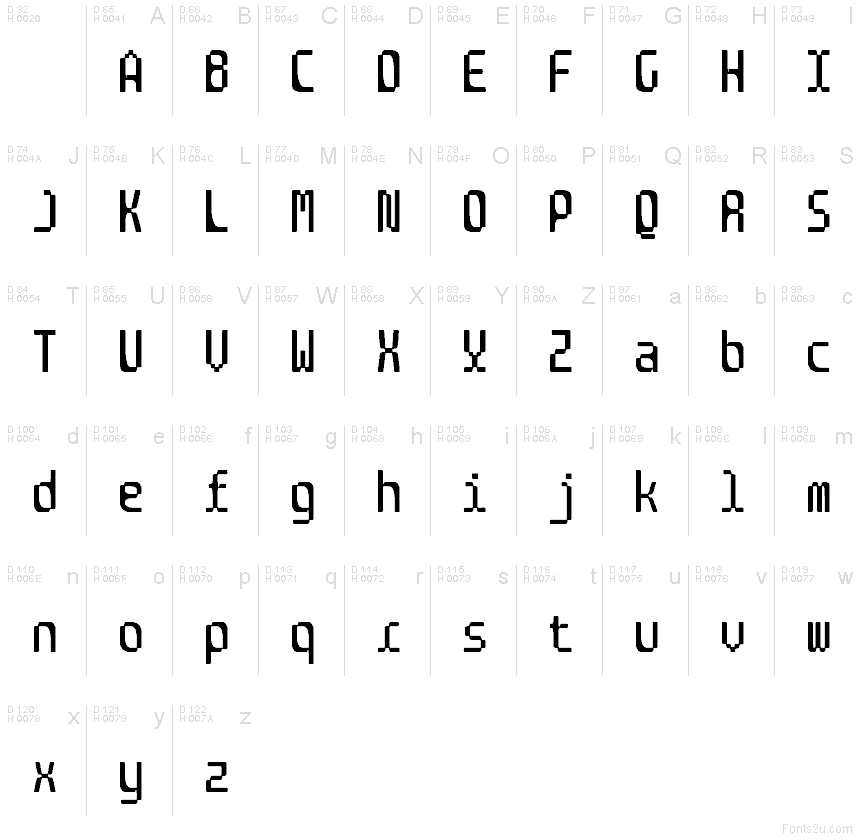
CS Norman font designed by Craft Supply Co. is of modular and geometric design which makes it futuristic. Its characters have a contemporary aesthetic built with condensed width for a minimalistic yet impactful look. A display and digital presence characterize this techno font, bringing an innovative touch to all sorts of designs that require it.
The free techno display font is perfect for logos, posters, magazine layouts, books interiors, headlines, packaging projects, labels, business cards and a lot more. Its creativity can also be explored in mobile application or video game design where other technological vibes are essential!